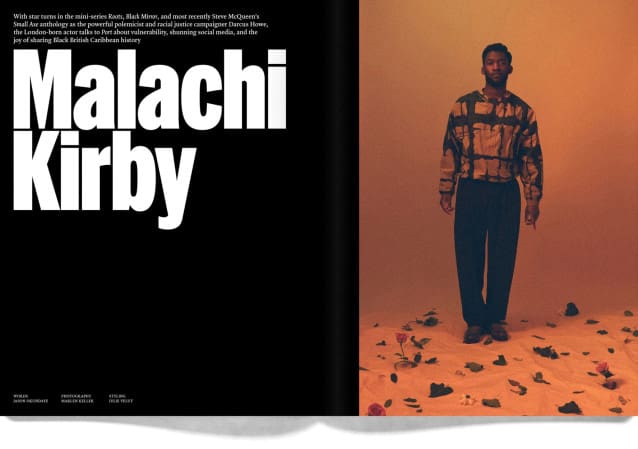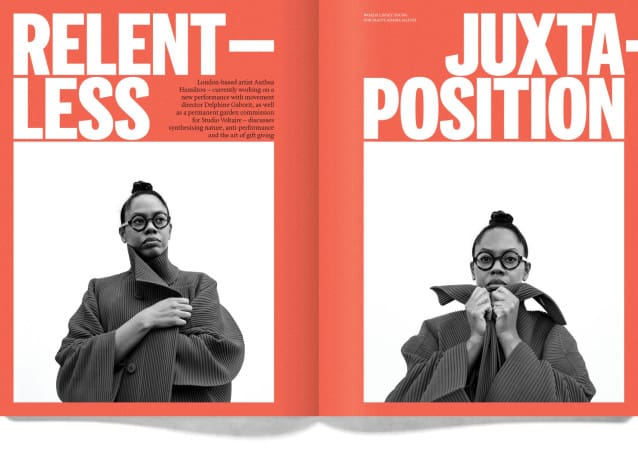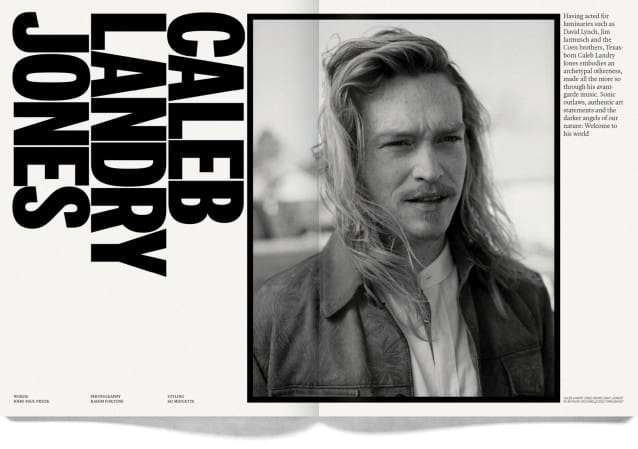
A2 Record Gothic Mono Font
A2 Record Gothic Mono Font is a revival of Ludlow’s Record Gothic typeface designed in the 1920s and updated in the 50s. This is our attempt to unify and systemise the disparate font styles – bold, wide, condensed, and extra condensed – that were added to the family over the years by the Ludlow Typograph Company. Originating in the late 1920s as a ‘copy’ of American Type Founders News Gothic (1908) by Morris Fuller Benton, Ludlow’s Record Gothic existed as a stand-alone font in a single weight for many decades. As a result, Ludlow’s unusual hybrid family has produced a rather charming anomaly in the annals of type.